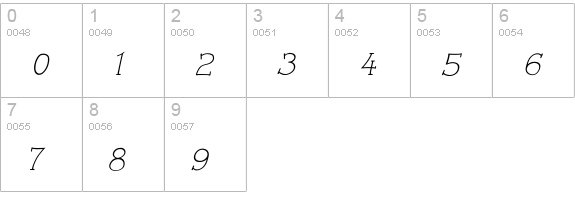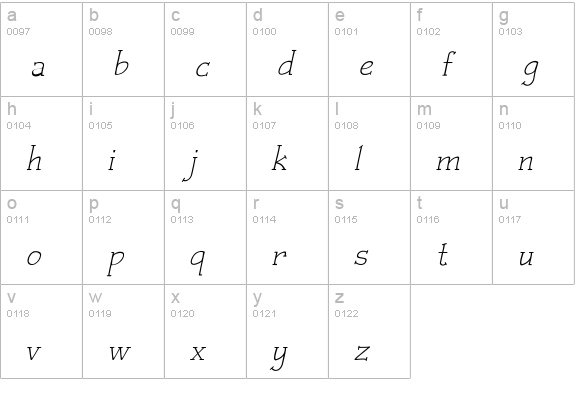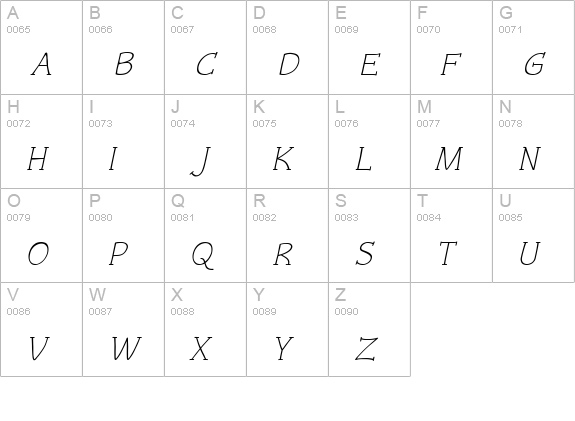
Czaristite Oblique Font Details
Czaristite Oblique is a distinctive, italic variant in the Czaristite typeface family \xE2\x80\x94 well suited to design and typography projects.
Czaristite Oblique is a beautifully crafted font that exudes elegance and sophistication. Its sleek and stylish design makes it perfect for adding a touch of luxury to any project. The unique oblique angle of the letters adds a modern twist to its classic appearance, making it stand out from the crowd. This font is the perfect choice for projects that require a touch of grandeur and sophistication. Whether you are designing a high-end fashion magazine, creating elegant wedding invitations, or crafting a luxurious branding identity, Czaristite Oblique will elevate your designs to the next level. Best of all, Czaristite Oblique is free to download at FontsMarket.com. This means you can add this stunning font to your collection without breaking the bank. Don't miss out on the opportunity to enhance your designs with the timeless elegance of Czaristite Oblique. Download it today and let your creativity shine!